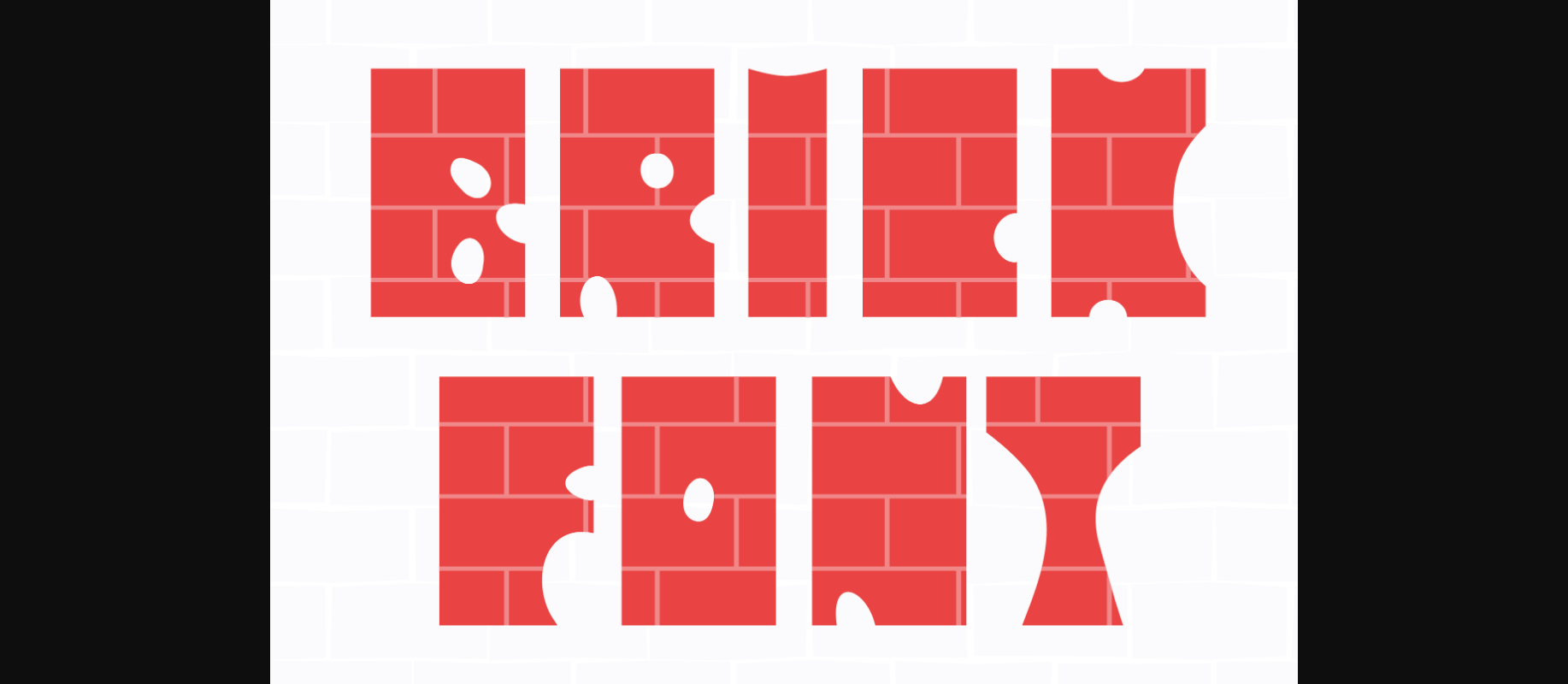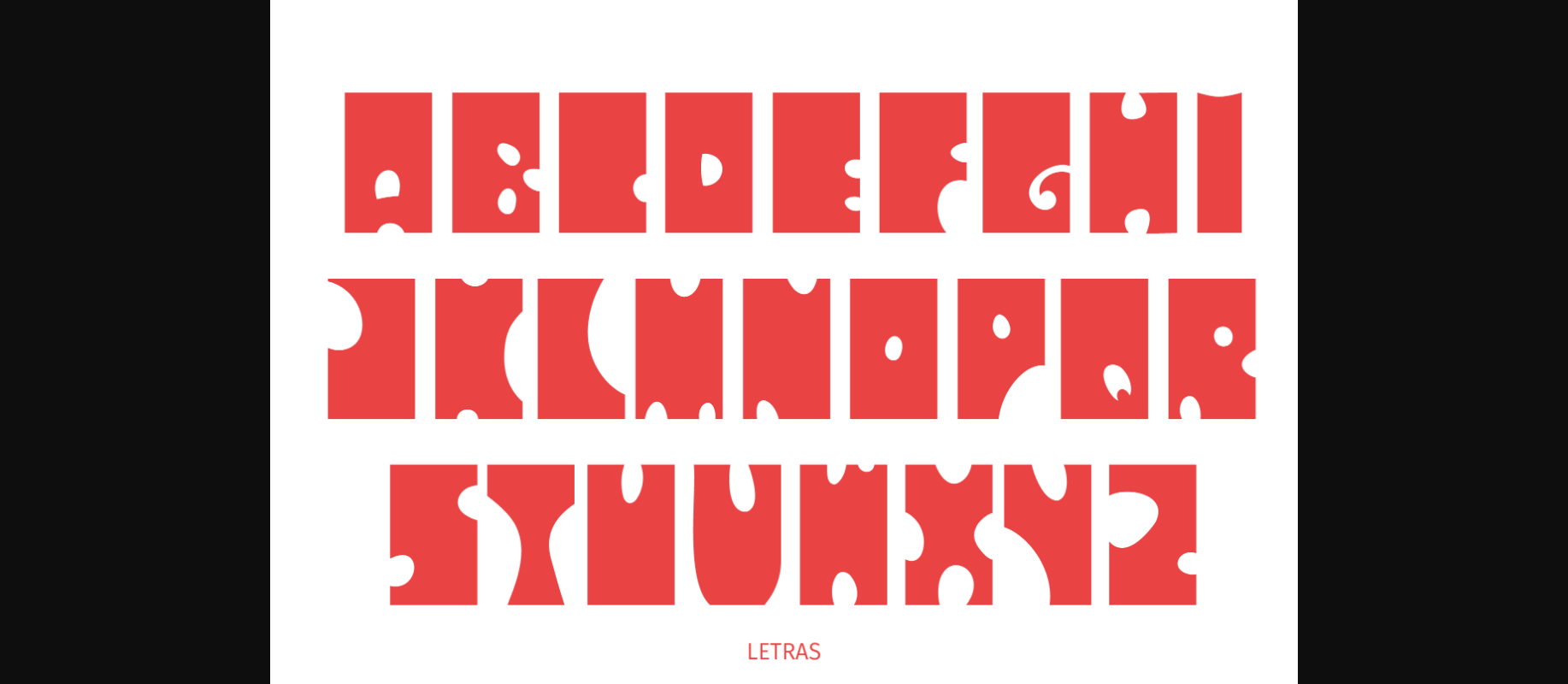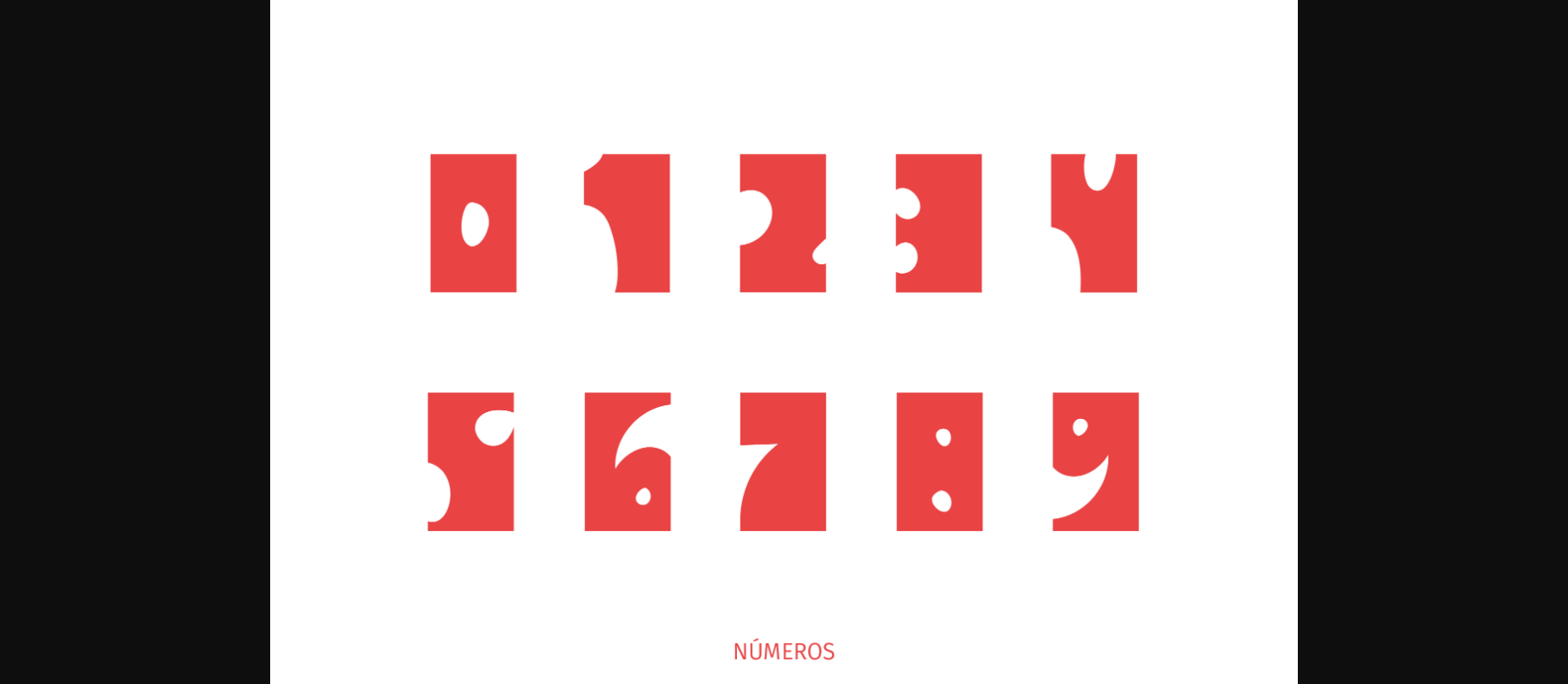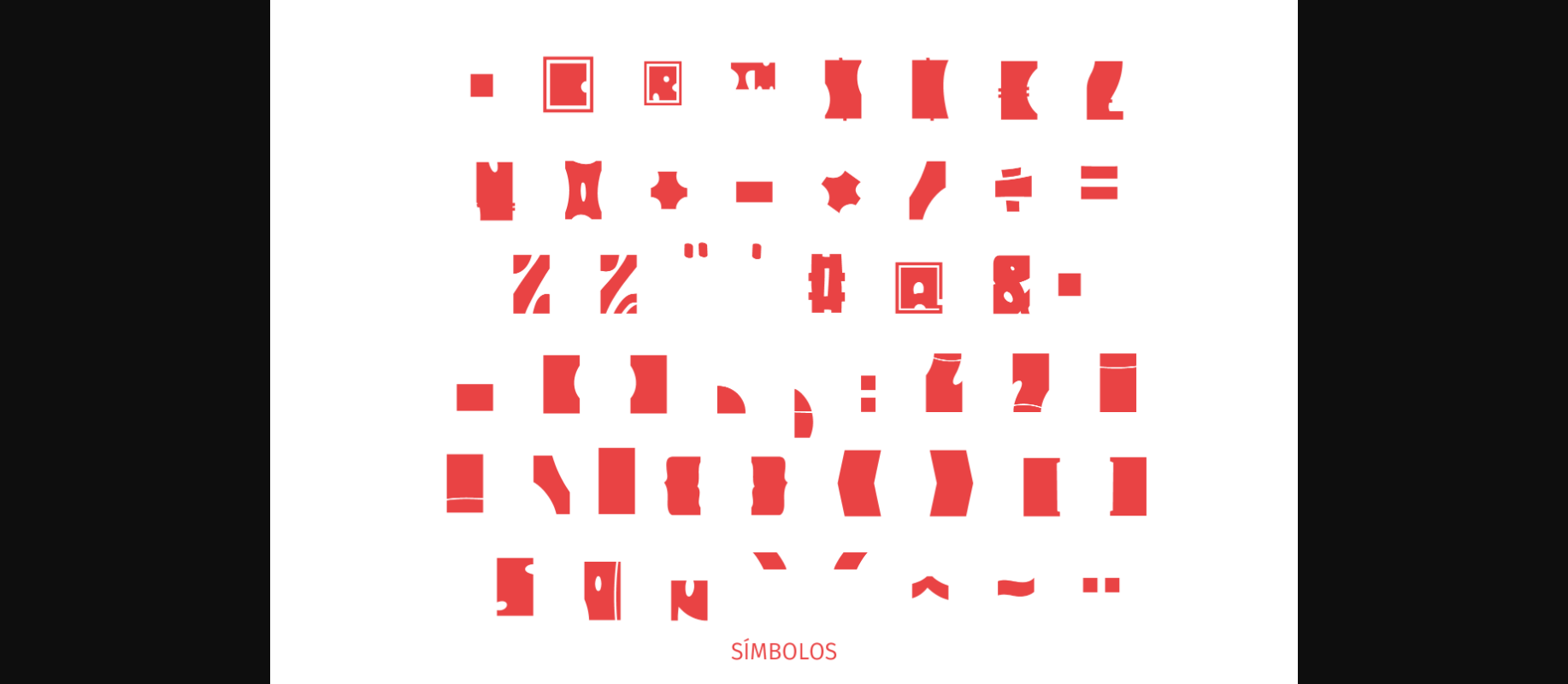
HomeDecorative FontsBrick Font Decorative Fonts Brick Font FacebookXPinterestWhatsApp 1 of 6 ... Brick Font Poster 2... Brick Font Poster 3... Brick Font Poster 4... Brick Font Poster 5... Brick Font Poster 6... About Brick Font Brick is an incredibly unique, bold and thick lettered decorative font. No matter the topic, this font will be an incredible asset to your fonts’ library, as it has the potential to elevate any creation. DOWNLOAD NOW People also explored Elmino Font Ramesty Font Mekursa Font Belleson Script Font Sophie Font Baby Chubby Font Selvia Font London Night Font Drast Script Font 395 0 TagsBrickBrick Font Previous articlePumpkin Scream FontNext articlePumpkin Boo Font LEAVE A REPLY Cancel reply Comment: Please enter your comment! Name:* Please enter your name here Email:* You have entered an incorrect email address! Please enter your email address here Website: Save my name, email, and website in this browser for the next time I comment. Personal Use Free Dear Monita Personal Use Free Read more about this font Heart Memory Personal Use Free Read more about this font Martani Personal Use Free Read more about this font Time for Presents Personal Use Free Read more about this font BLOG How to Cut Any Font on Cricut: Convert a Font to SVG (Free) Turn any font into a clean SVG so it cuts crisp on Cricut - a quick 3-step workflow using a free font-to-SVG tool. Top 7 Google Fonts Alternatives for Faster and Privacy-Friendly Web Design (2025) Modern Sans-Serif Fonts That Brands Love in 2025 Free vs Paid Fonts: Why Investing in Premium Fonts Is Worth It